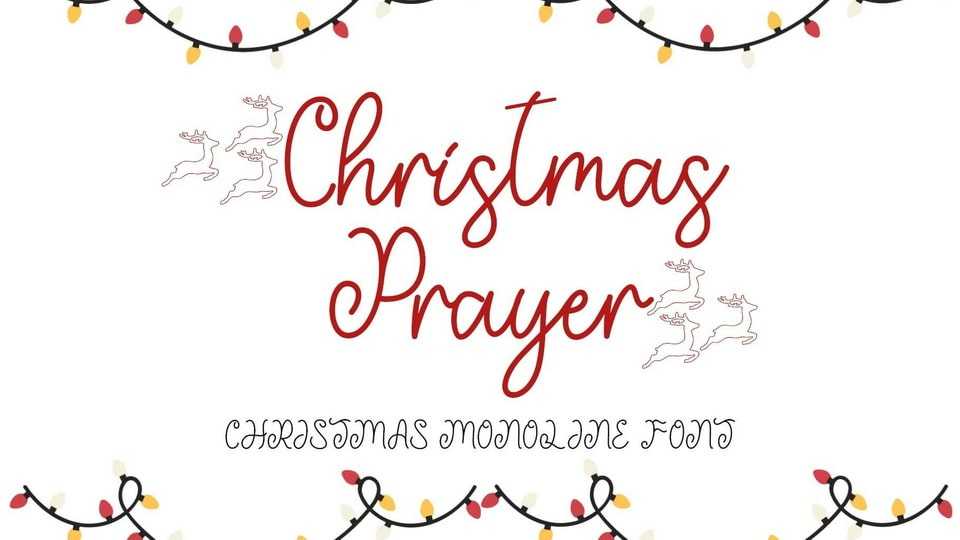
Download Christmas Prayer font, a monoline script typeface decorated with letters in the shape of a jumping deer. Can be used for Christmas, weddings, invitations and more.